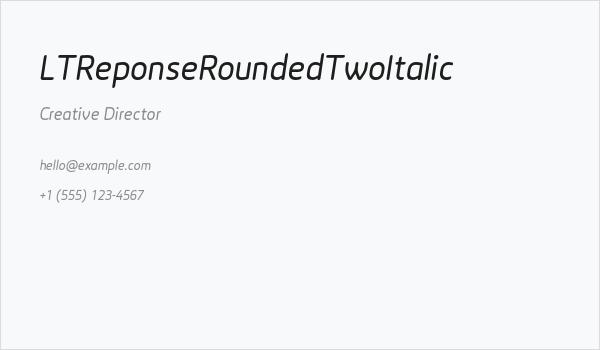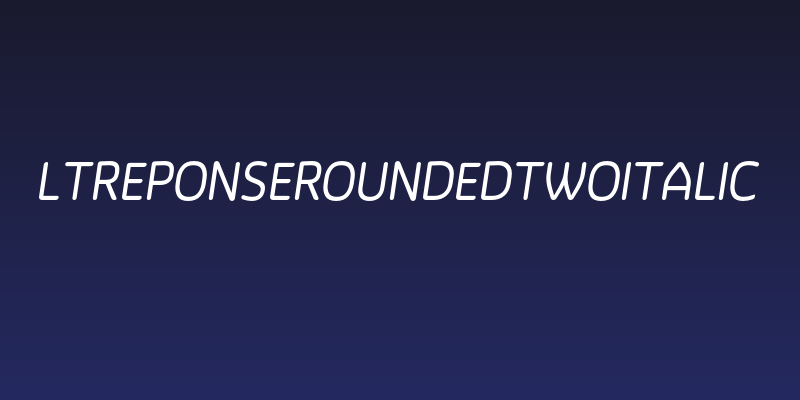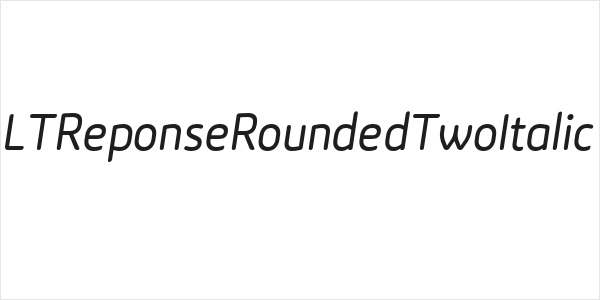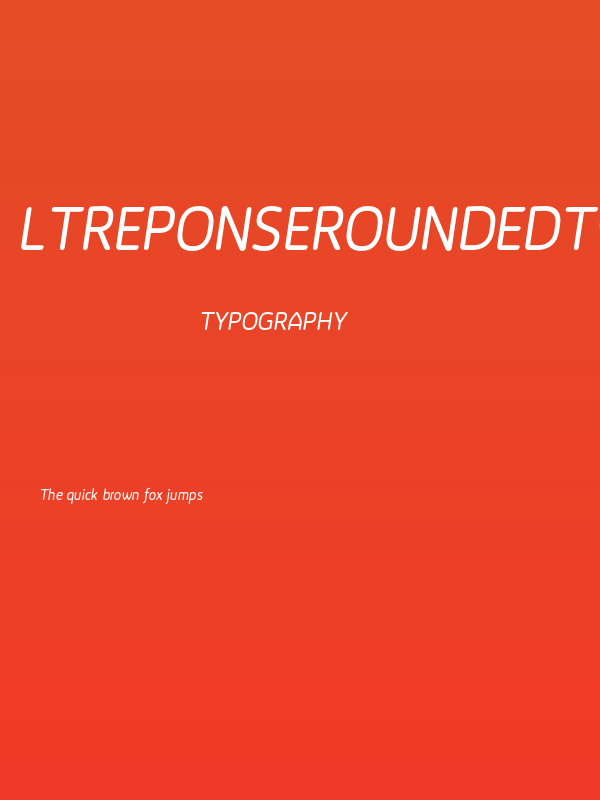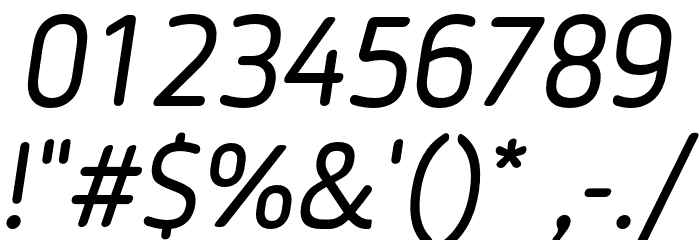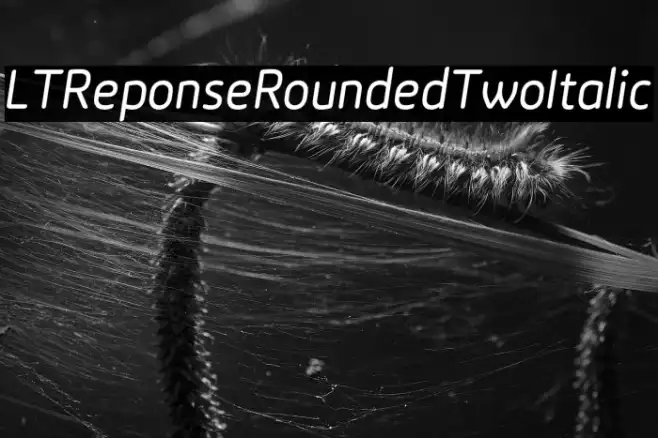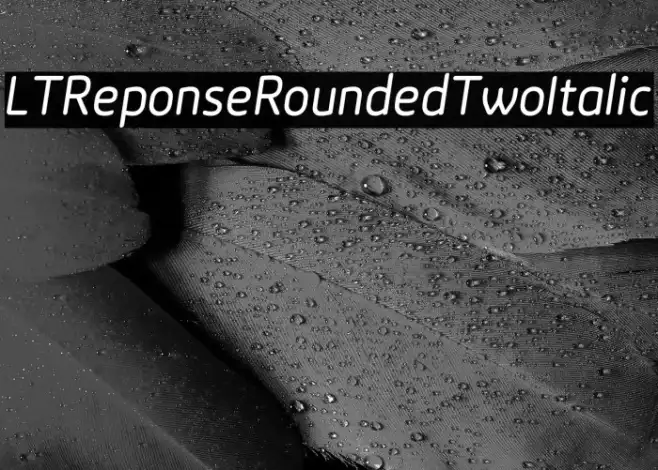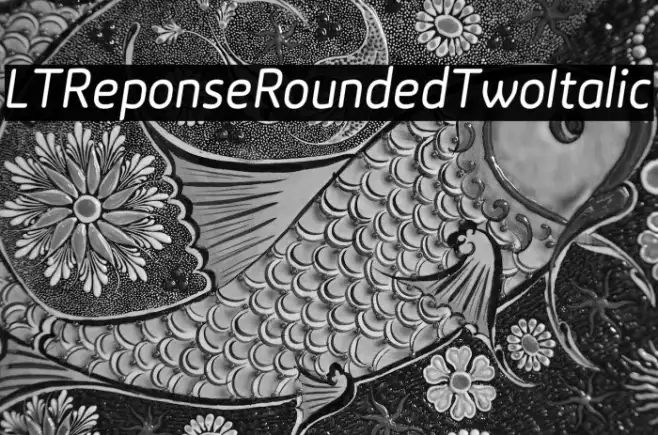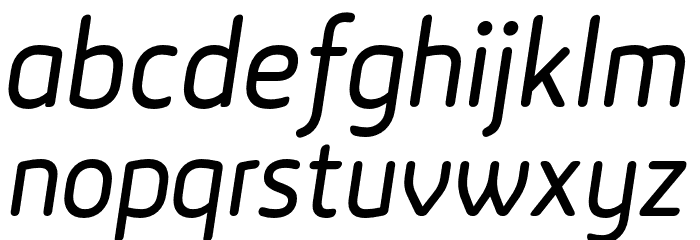
LTReponseRoundedTwoItalic Font
LTReponseRoundedTwoItalic Description
This font features a modern, rounded design with a smooth, flowing appearance. The letters are slightly italicized, giving a sense of motion and elegance. The rounded edges provide a friendly and approachable feel, while maintaining a clean and professional look. The characters are evenly spaced, ensuring readability and balance. The numbers and special characters are consistent with the overall style, making it versatile for various applications. Its contemporary style is suitable for digital and print media, offering a harmonious blend of formality and casualness.
| Proposed Projects | Ideal for branding, advertising, web design, and user interfaces where a modern and approachable look is desired. |